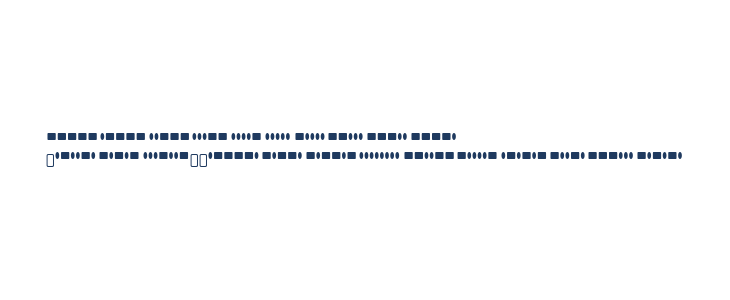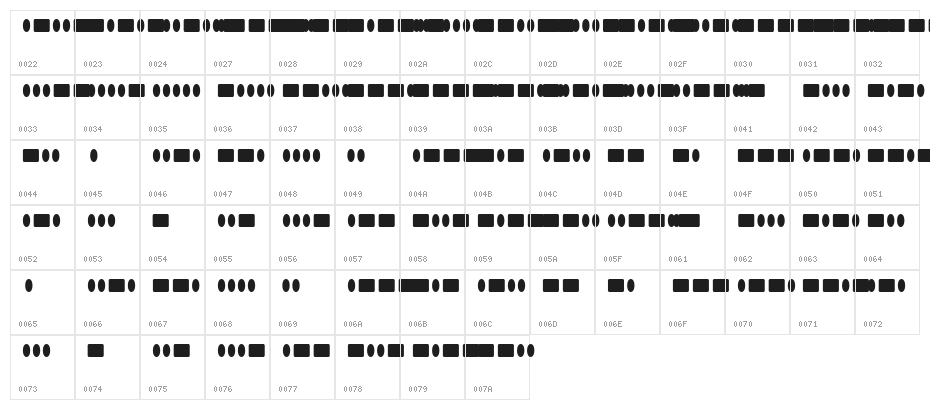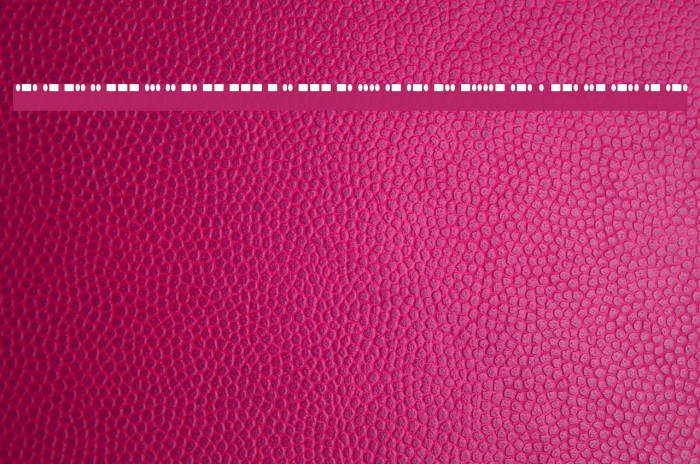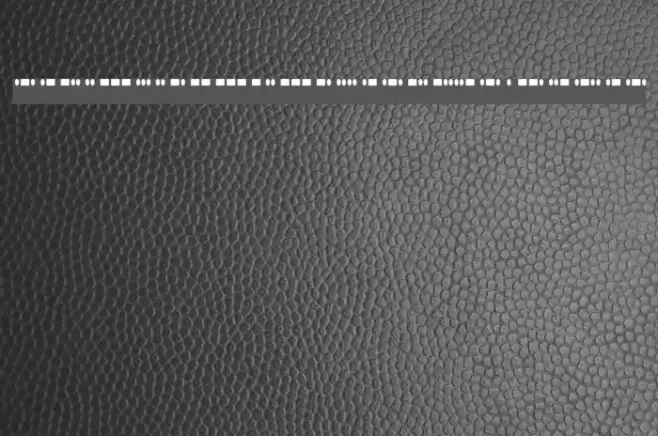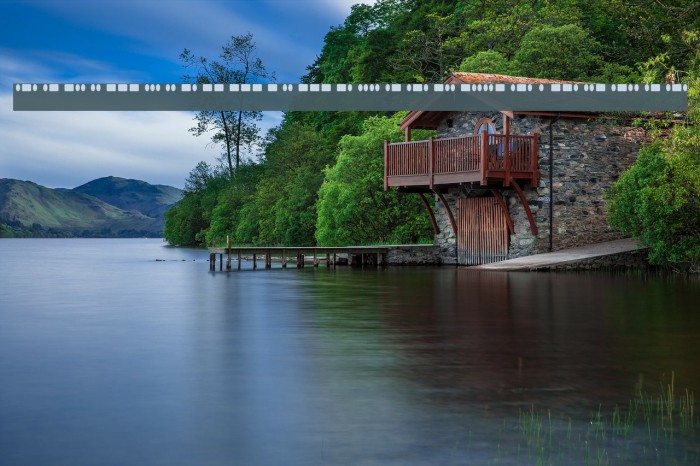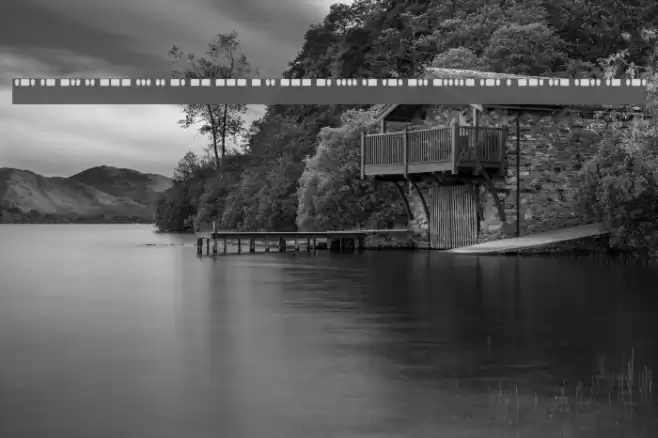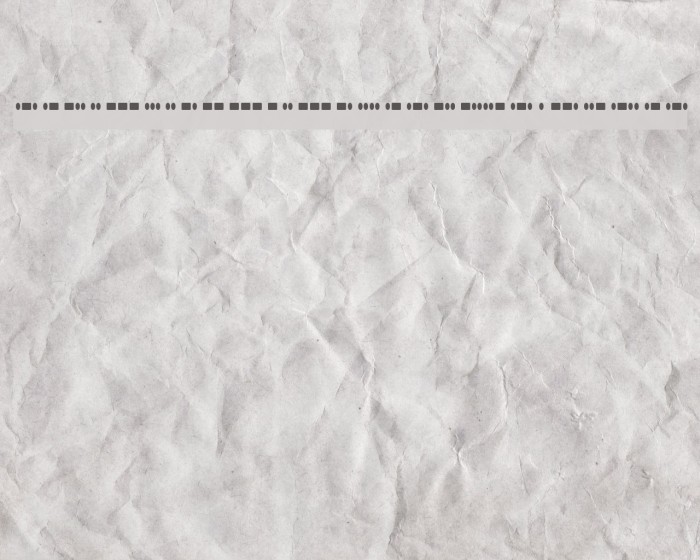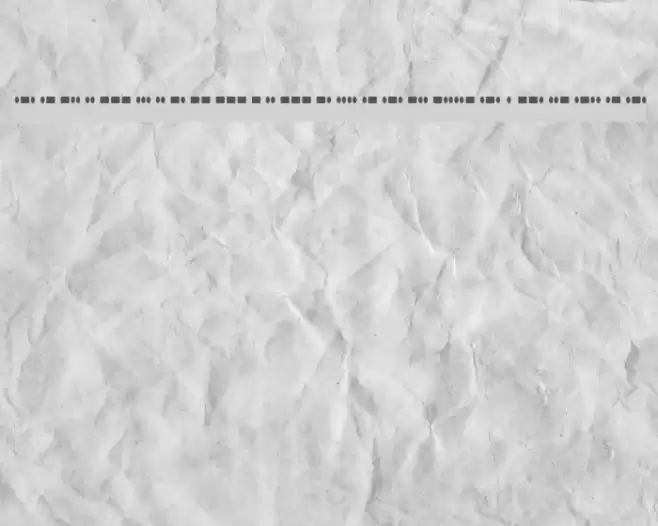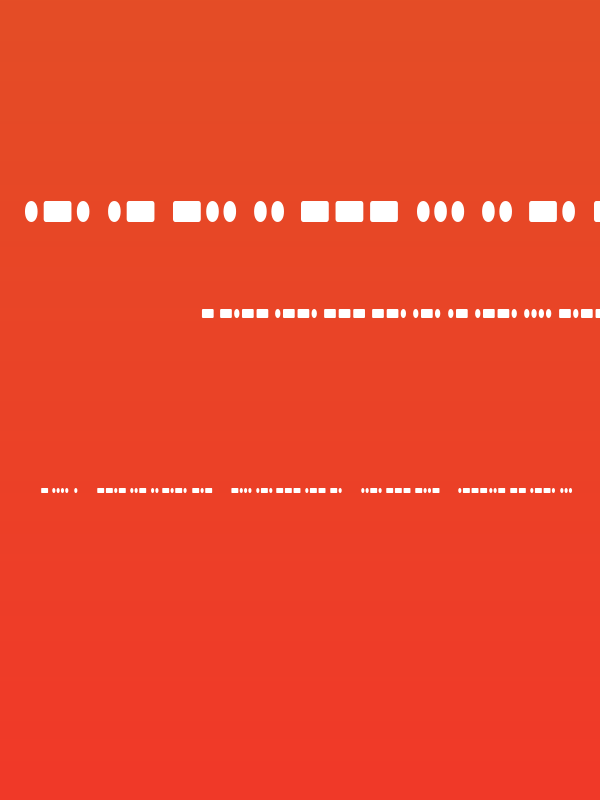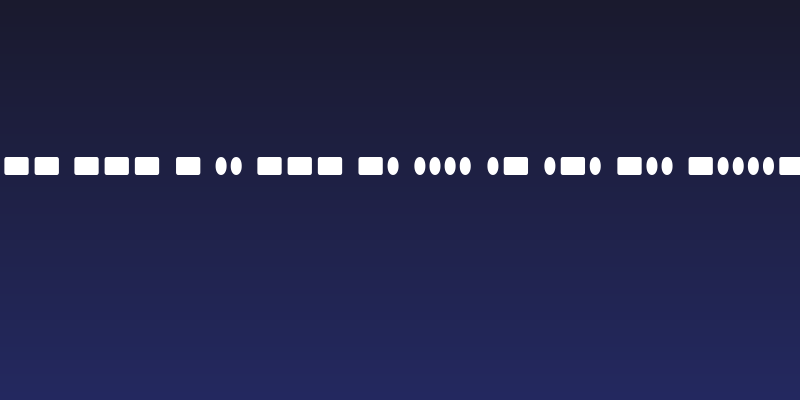
RadiosinMotionHard-Regular Font
RadiosinMotionHard-Regular Description
This font is a creative representation of Morse code, where each character is depicted using a combination of dots and dashes. The design is highly unconventional, focusing on a unique visual style that mimics the appearance of Morse code signals. Each letter and number is crafted with precision, ensuring that the dot and dash patterns are clear and distinct. The font is not intended for traditional text but rather for artistic or thematic projects that require a Morse code aesthetic. Its novelty lies in its ability to transform standard alphanumeric characters into a coded visual language.
| Overall Style | Novelty, Thematic |
| Use Case | Artistic projects, Themed designs |
| Proposed Projects | Ideal for escape room designs, educational materials on Morse code, themed posters, or any project requiring a cryptic or coded appearance. |